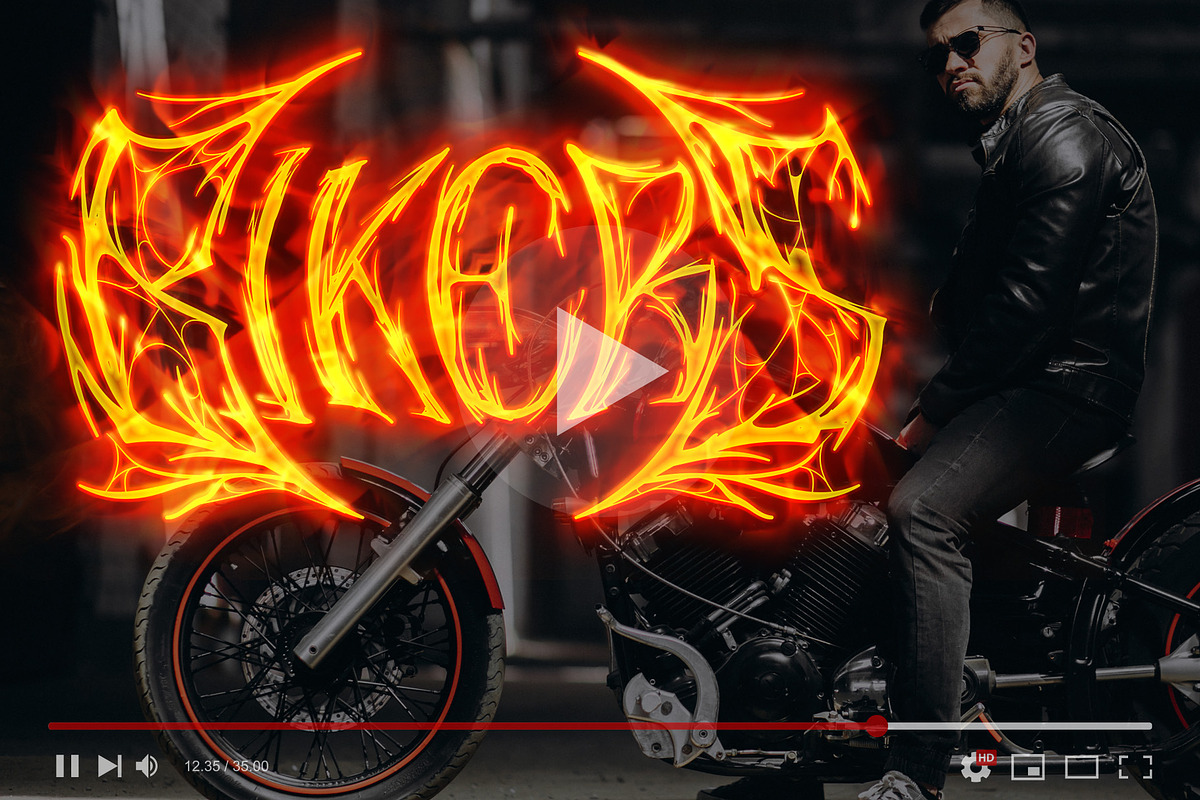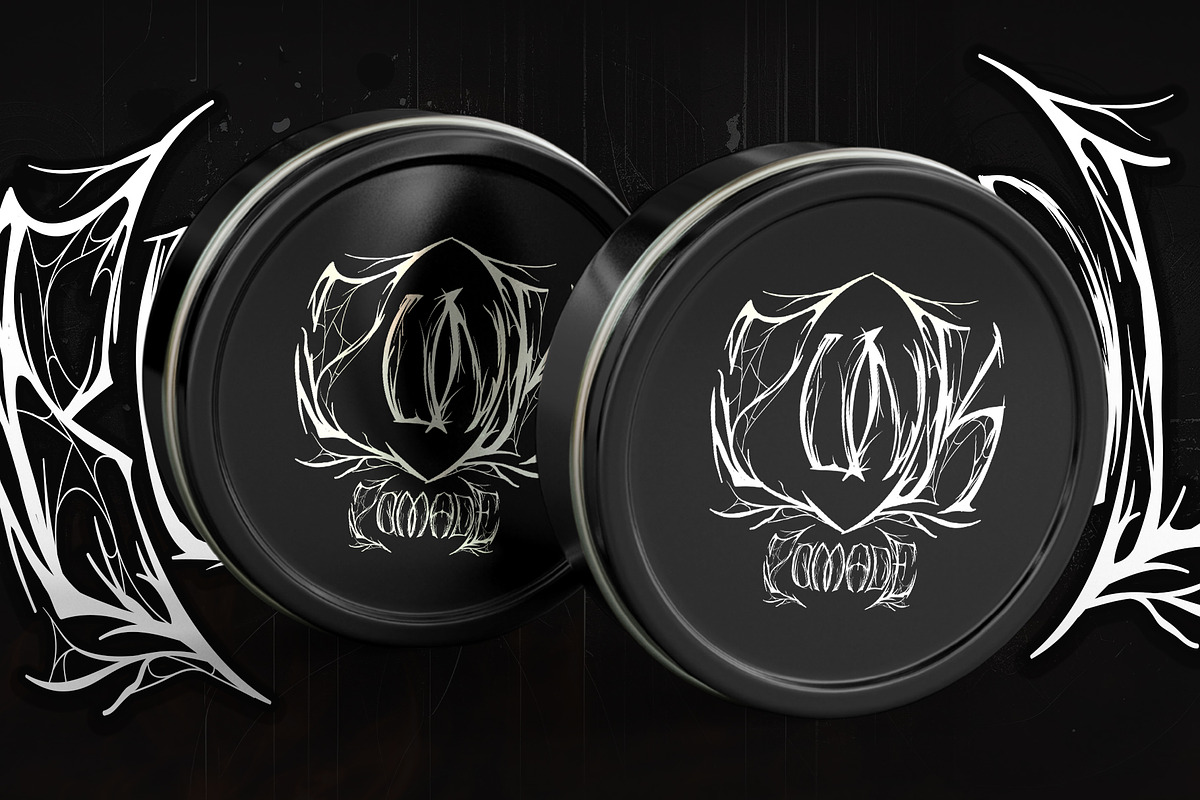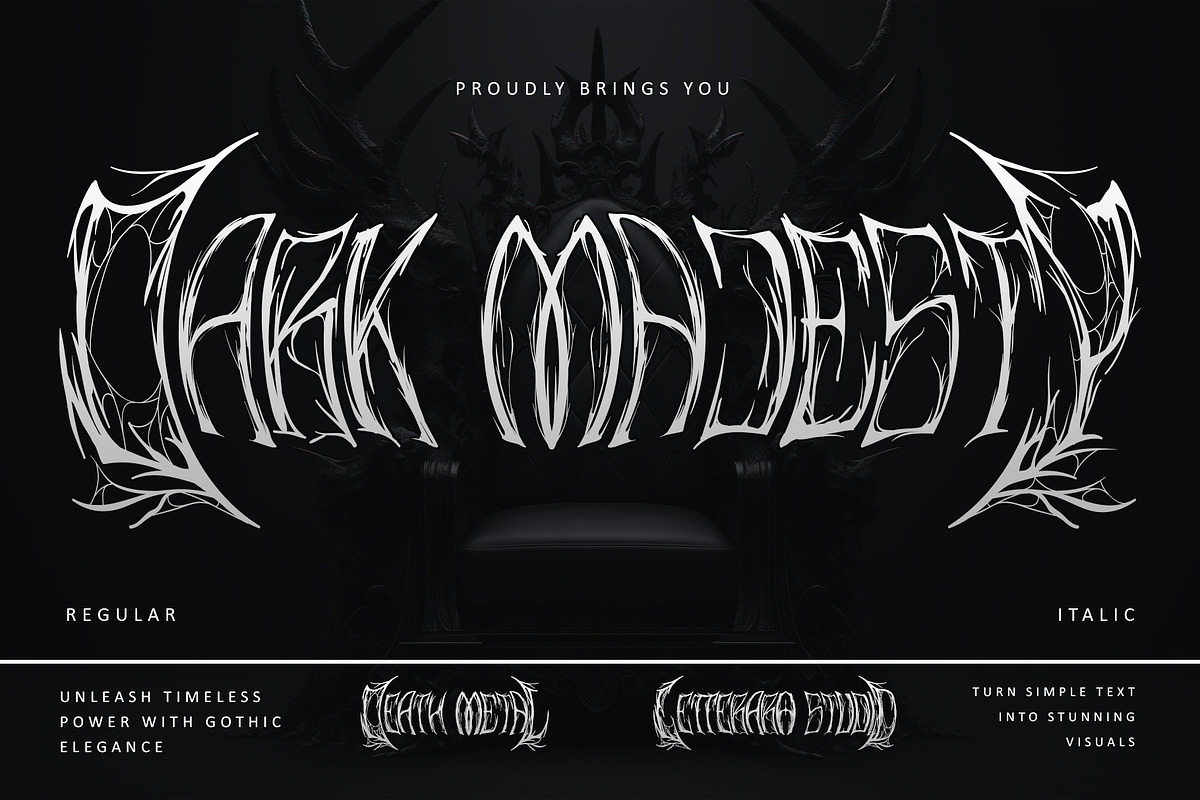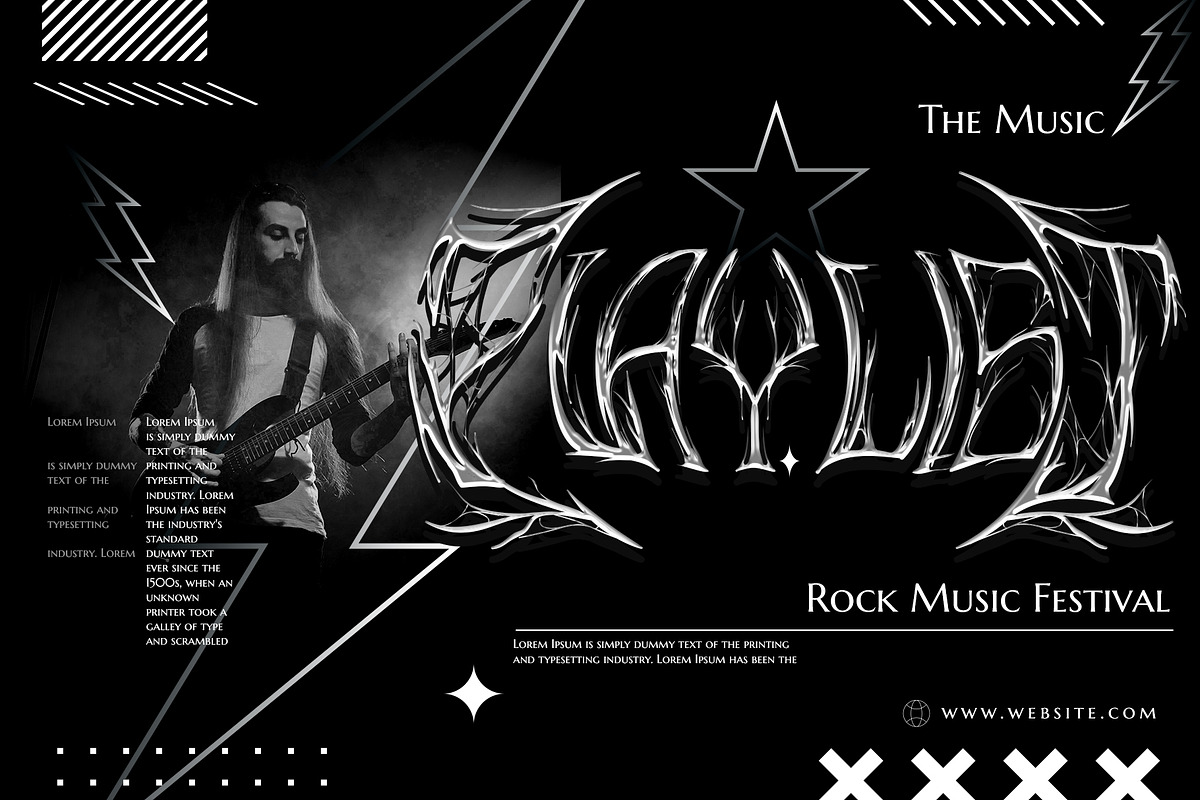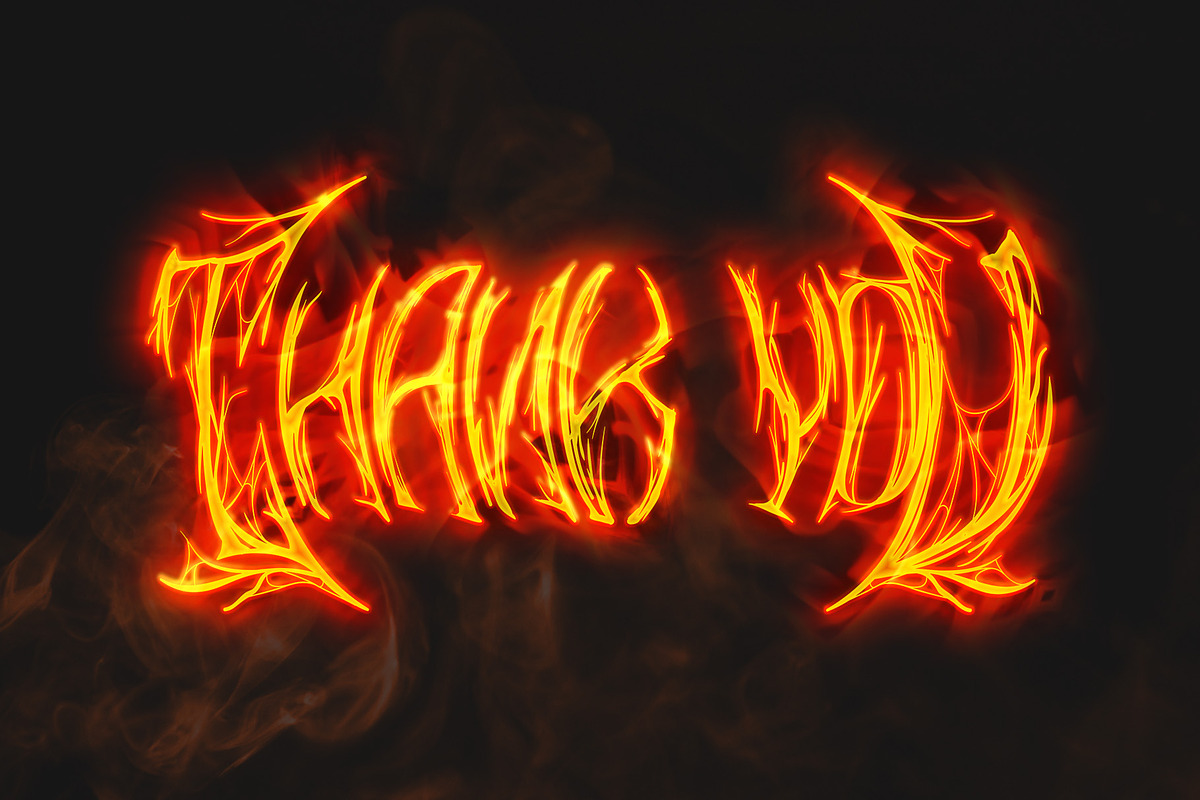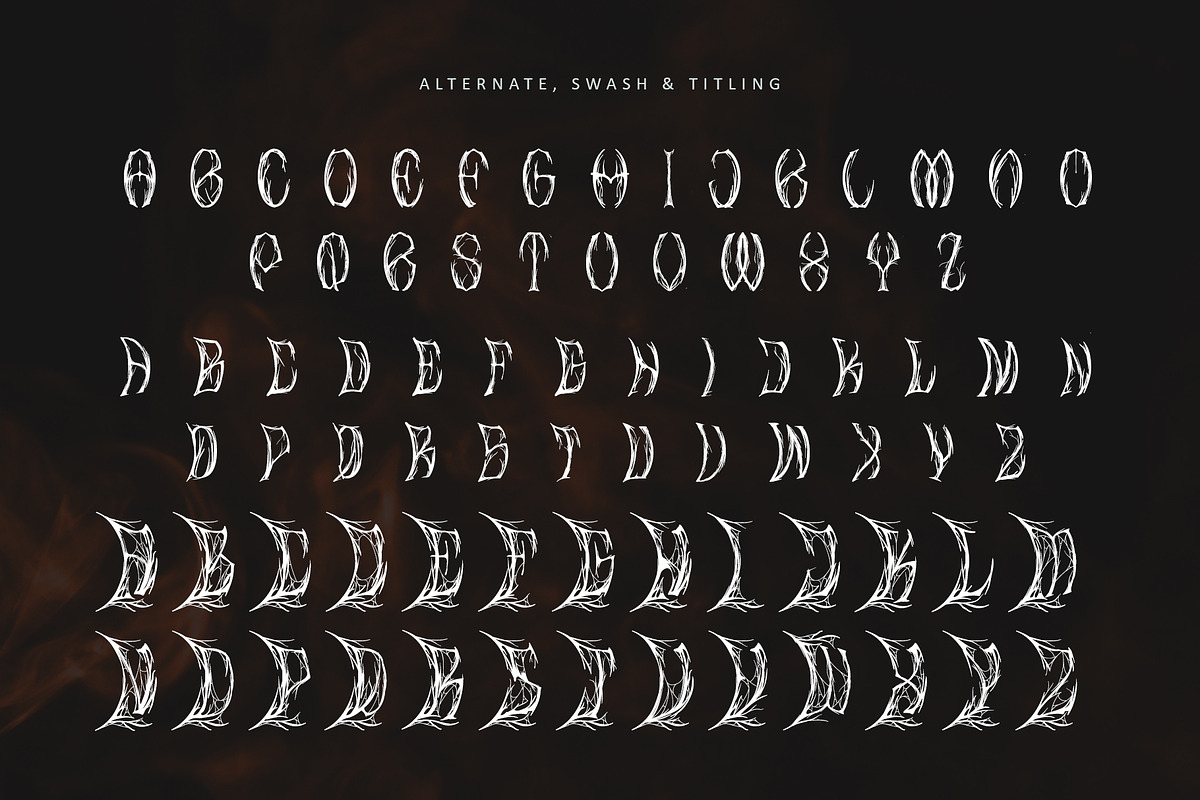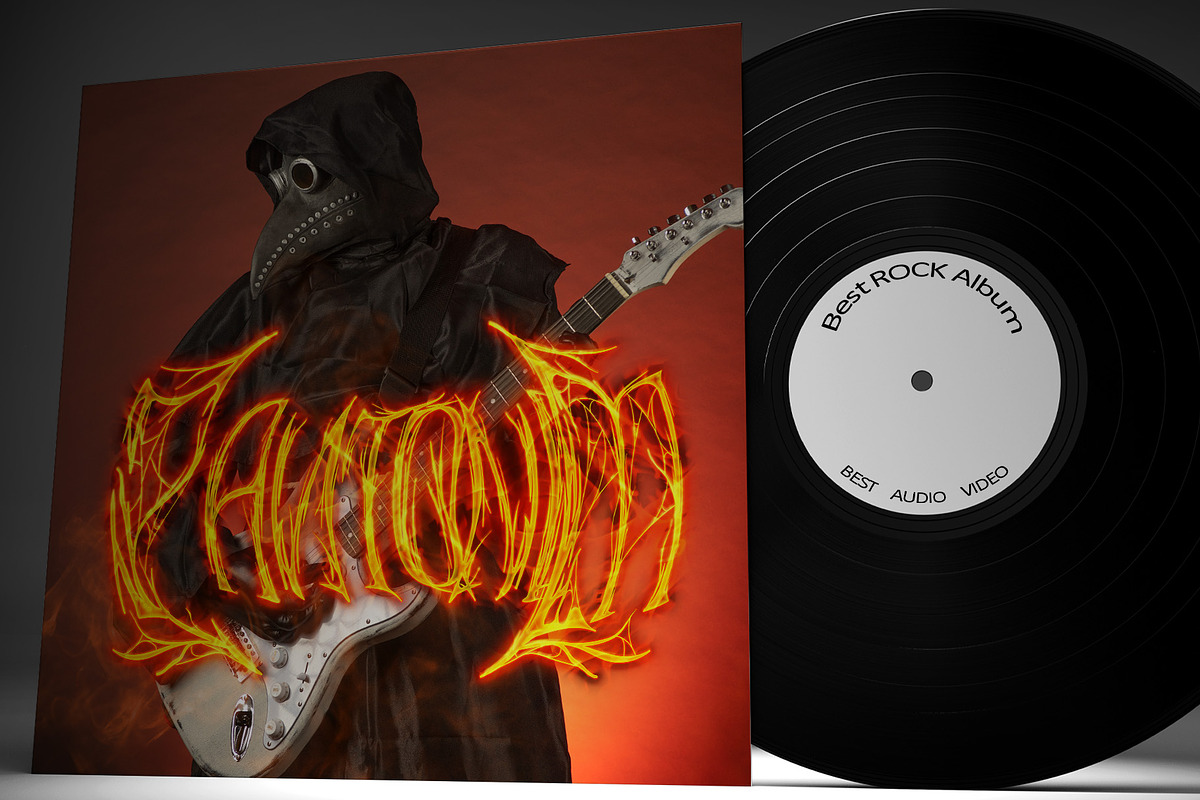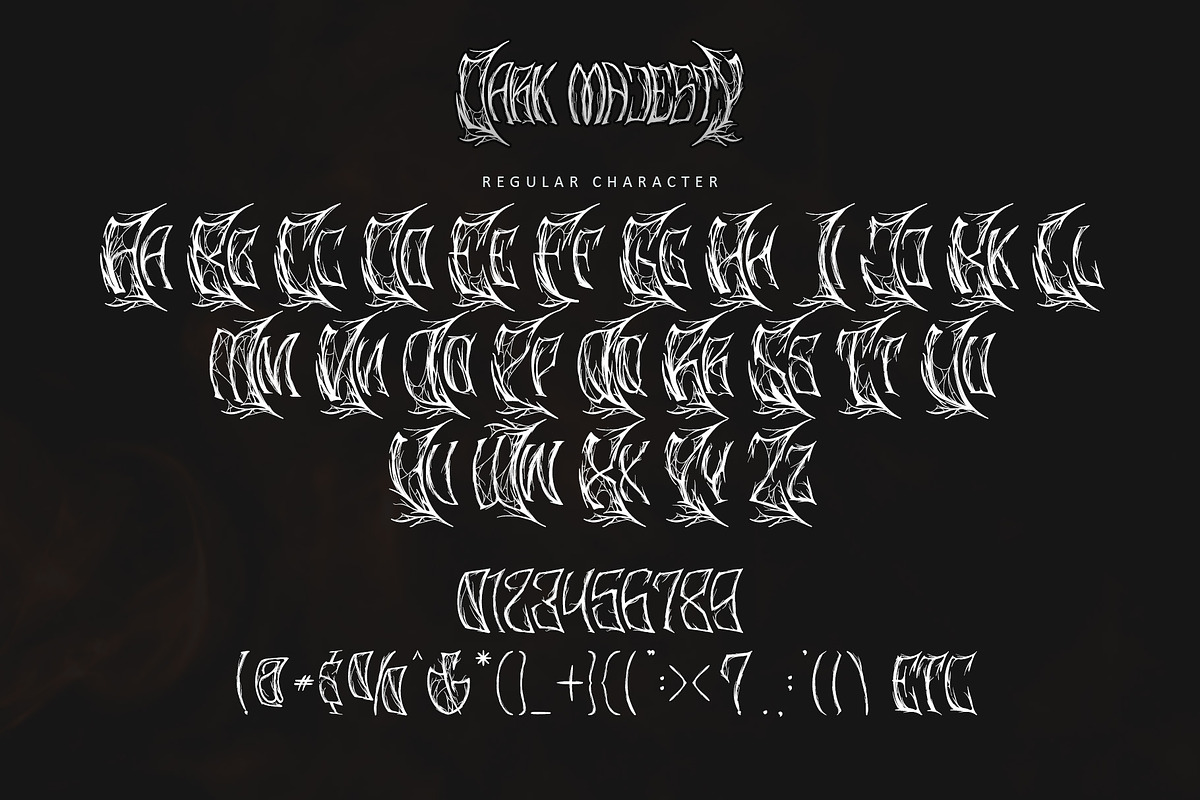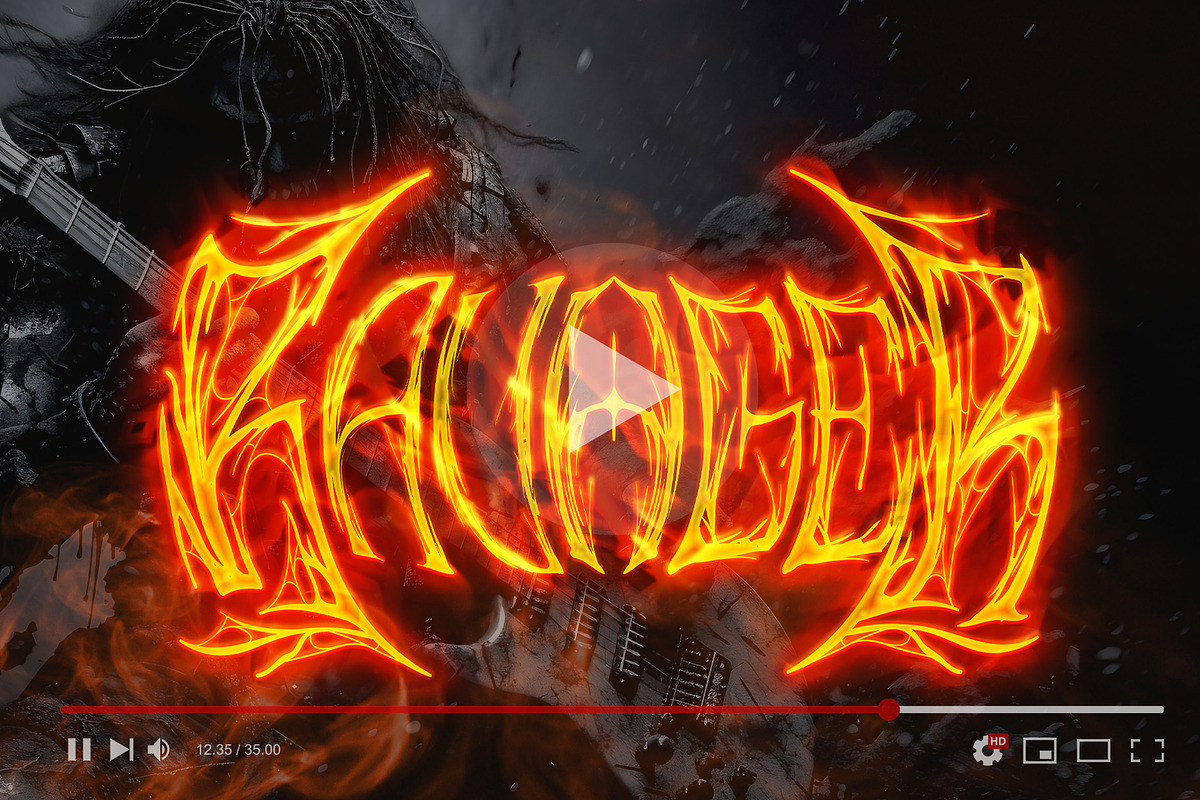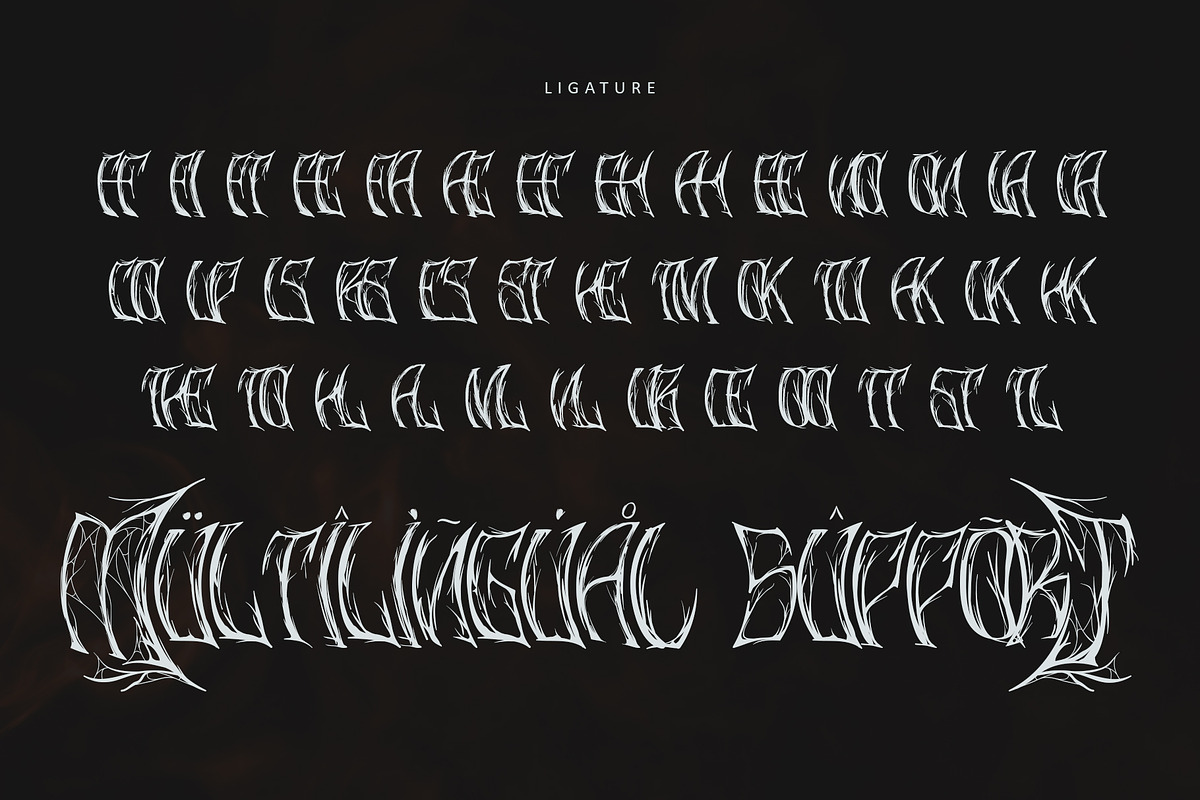
Dark Majesty
Enter the foreboding domain of Dark Majesty, a death metal blackletter font forged in the fires of raw power and gothic elegance. This font channels unrelenting intensity with its razor-sharp edges, dramatic strokes, and intricate detailing, exuding an aura of darkness and dominance. Perfect for album covers, band merchandise, striking logos, movie titles, and posters, Dark Majesty demands attention and amplifies the primal energy of your designs. Whether you’re creating for the stage, the screen, or the page, let Dark Majesty infuse your work with an unyielding force that leaves a lasting impression.
- Support multilingual; ä ö ü Ä Ö Ü ß ¿ ¡
- uppercase letters
- Alternate, swash, titling, & Ligature